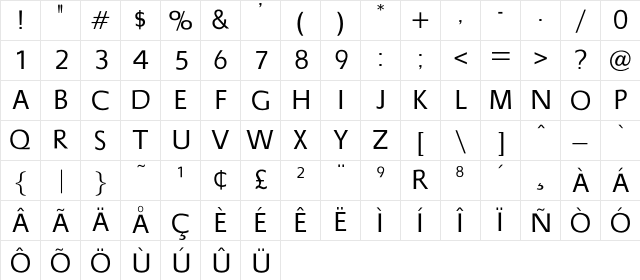
OPTISteel-Caps Regular Free Font
OPTISteel-Caps Regular
Complete OPTISteel-Caps Regular glyph index. Displaying only characters natively supported by OPTISteel-Caps Regular font.
Design Context for OPTISteel-Caps
OPTISteel-Caps is a composed and adaptable typeface that performs quietly and consistently across a wide range of design contexts.